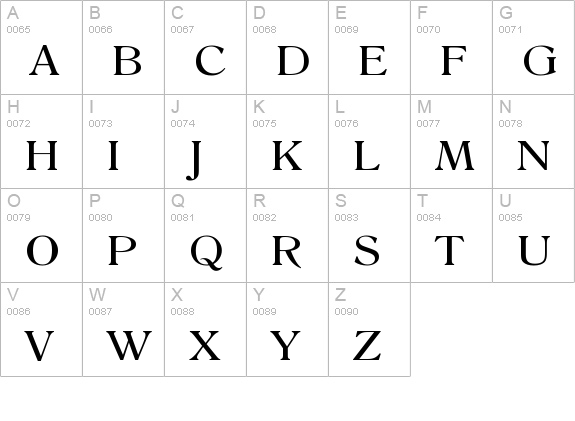
Roomy Wide Normal is the standard, neutral, extended-width variant in the Roomy typeface family \xE2\x80\x94 well suited to general body text, paragraphs, and standard typographic work.
Introducing Roomy Wide Normal font - a versatile and modern typeface that exudes both elegance and readability. Designed with spacious characters and a clean, simple aesthetic, this font is perfect for a wide range of design projects, from branding to editorial layouts. Roomy Wide Normal strikes the perfect balance between being eye-catching and easy to read, making it an ideal choice for headlines, titles, and body text alike. Best of all, Roomy Wide Normal font is freely available to download at FontsMarket.com. Whether you're a seasoned designer looking to enhance your typography collection or a beginner searching for the perfect font for your next project, Roomy Wide Normal font offers a sleek and professional solution. Add a touch of modern sophistication to your designs with this versatile and stylish typeface today.